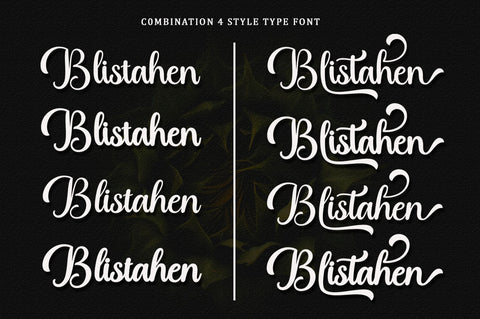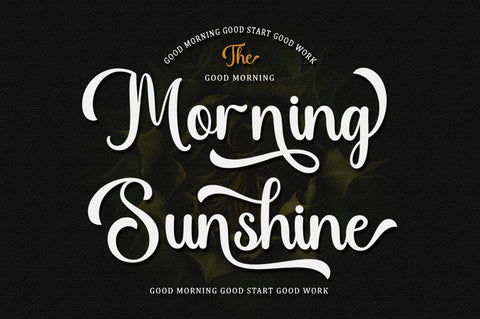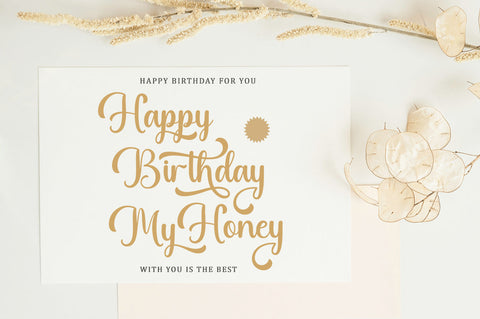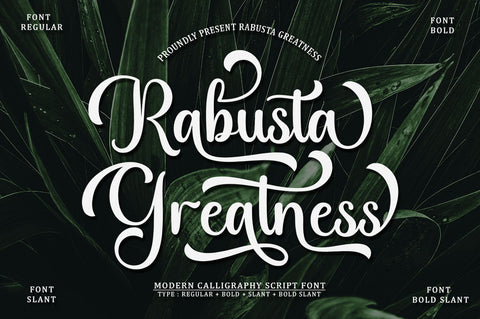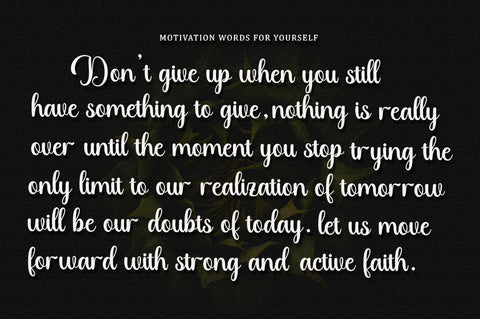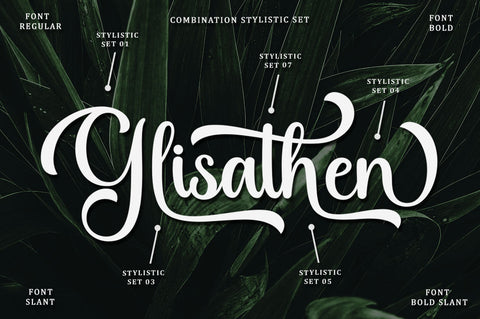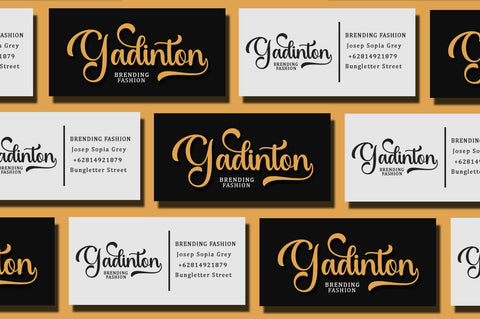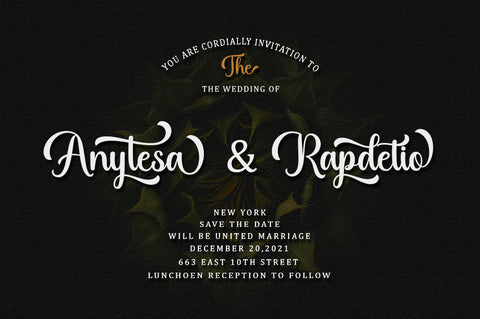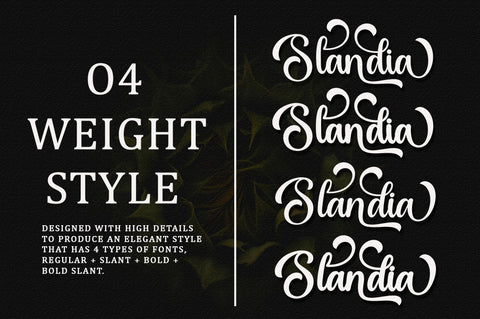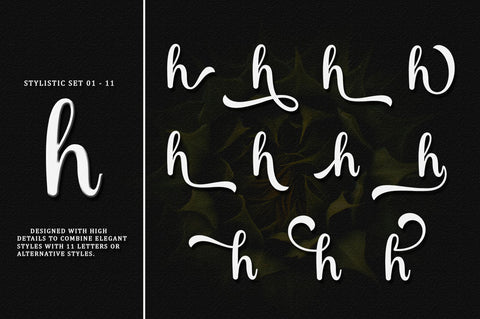
Rabusta Greatness - 4 Type Font
Rabusta Greatness is an elegant calligraphy font that comes with a very beautiful character change, a kind of classic decorative script with a modern touch, designed with high detail to present an elegant style, which has 4 types of fonts,
this:
Rabusta Greatness Regular,
Rabusta Greatness Bold,
Rabusta Greatness Slant,
Rabusta Greatness Bold Slant,
Rabusta Greatness is attractive because the typeface is pleasing to the eye, clean, feminine, sensual, glamorous, simple and very easy to read, thanks to its many extravagant letter relationships. I also offer a number of decent stylistic alternatives for some of the letters. Classic style is very suitable to be applied in various formal forms such as invitations, labels, restaurant menus, logos, fashion, make up, stationery, novels, magazines, books, greeting/wedding cards, packaging, labels or all kinds of advertising purposes. . . . . .